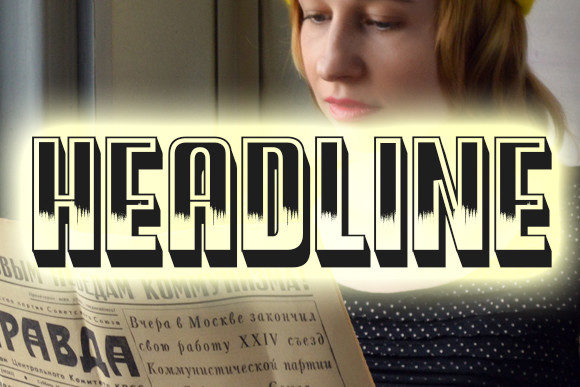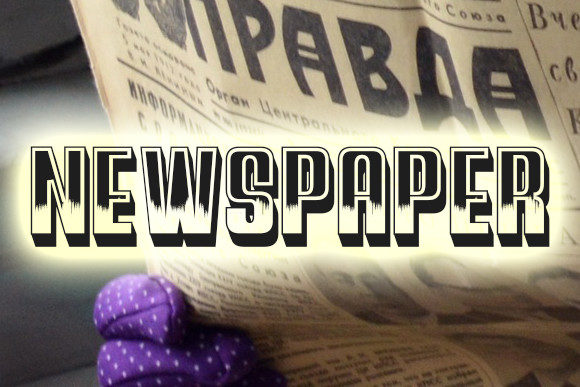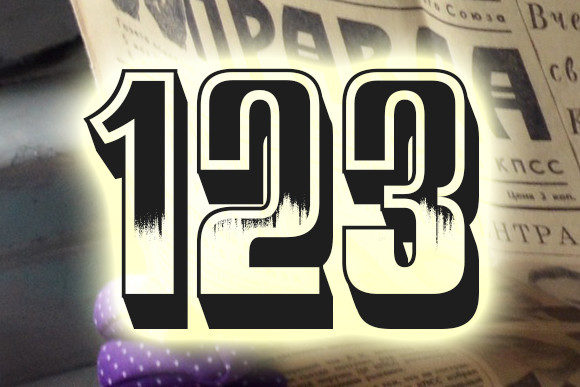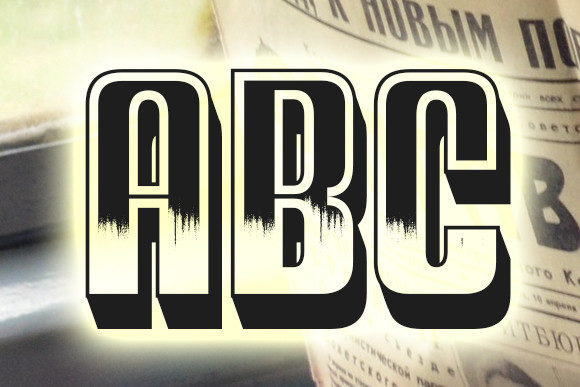
Discover the Power of Comunismo Font: Elevate Your Designs with this Stunning 3D Decorative Font
Are you tired of using the same old fonts in your designs? Look no further! Comunismo Font is here to revolutionize your creative projects with its unique 3D decorative style. This awesome font is perfect for designers, crafters, and anyone looking to add a touch of personality to their work. In this article, we’ll dive into the world of Comunismo Font, exploring its features, benefits, and endless possibilities.
What is Comunismo Font?
Comunismo Font is a 3D decorative font that boasts a distinctive and eye-catching design. Its bold, chunky letters are perfect for making a statement in any project. Whether you’re working on a logo, poster, or social media graphic, Comunismo Font is sure to turn heads. This font is designed to be versatile, making it suitable for a wide range of applications, from digital designs to print materials.
Key Features of Comunismo Font
• Unique 3D Design: Comunismo Font features a stunning 3D design that adds depth and dimension to your text.
• High-Quality Letters: The font includes high-quality letters, numbers, and punctuation marks, ensuring that your designs look professional and polished.
• Endless Variations: With Comunismo Font, you can experiment with different colors, textures, and effects to create unique and personalized designs.
Benefits of Using Comunismo Font
So, why choose Comunismo Font for your designs? Here are just a few benefits of using this amazing font:
• Stand Out from the Crowd: Comunismo Font is sure to make your designs stand out from the crowd, thanks to its bold and eye-catching design.
• Time-Saving: With Comunismo Font, you can create stunning designs in no time, thanks to its easy-to-use and versatile nature.
• Professional-Looking Designs: Comunismo Font is designed to help you create professional-looking designs that are sure to impress your clients or audience.
Endless Possibilities with Comunismo Font
One of the best things about Comunismo Font is its endless possibilities. Here are just a few ideas to get you started:
• Logos and Branding: Use Comunismo Font to create a bold and memorable logo that represents your brand.
• Posters and Flyers: Add a touch of personality to your posters and flyers with Comunismo Font’s unique 3D design.
• Social Media Graphics: Use Comunismo Font to create eye-catching social media graphics that are sure to grab attention.
• Crafting and DIY Projects: Comunismo Font is perfect for crafters and DIY enthusiasts looking to add a personal touch to their projects.
In conclusion, Comunismo Font is an awesome 3D decorative font that is sure to elevate your designs to the next level. With its unique design, high-quality letters, and endless variations, this font is perfect for designers, crafters, and anyone looking to add a touch of personality to their work. So why wait? Download Comunismo Font today and start exploring its endless possibilities!